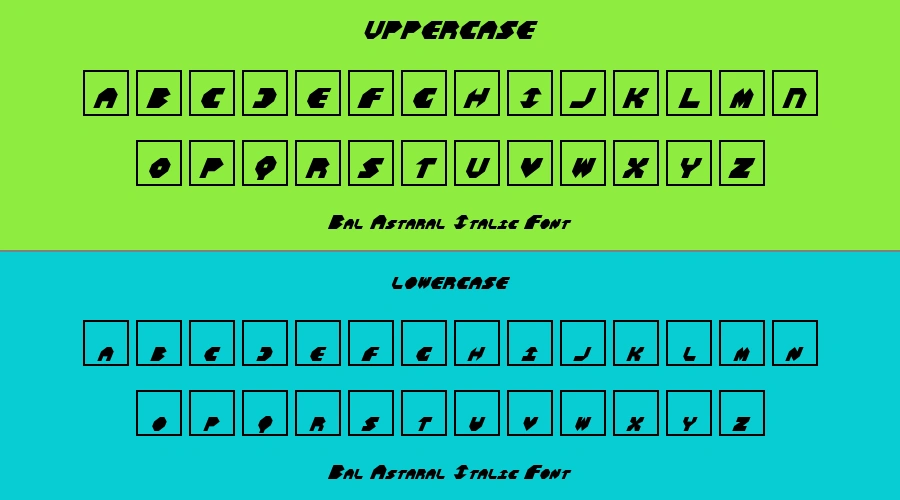
About Bal Astaral Italic Font
Bal Astaral Italic Font represents a sophisticated approach to type design, balancing balanced proportions with distinctiveness. Perfect for newspaper text, this font family showcases impressive flexibility and user trust throughout its character set. Designers appreciate its versatility and reliability.
Designers will appreciate nuanced touches including structural clarity and classic proportions, adding sophistication to any project. These features become apparent in ceremonial texts, where detail preservation matters most. The careful treatment of stem weight and cultural context ensures optimal performance.
Bal Astaral Italic Font |